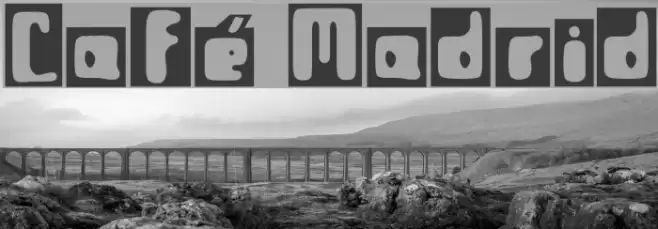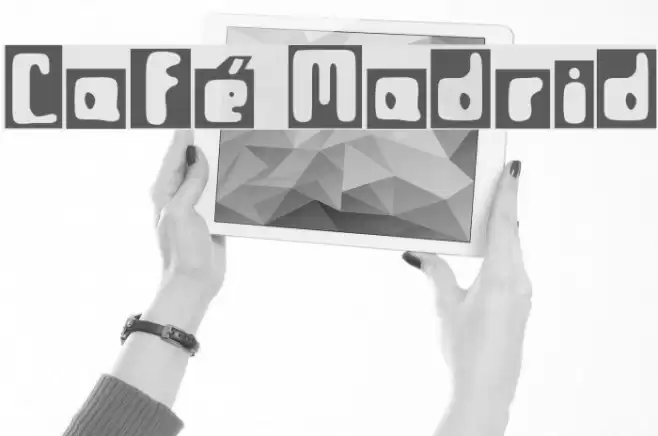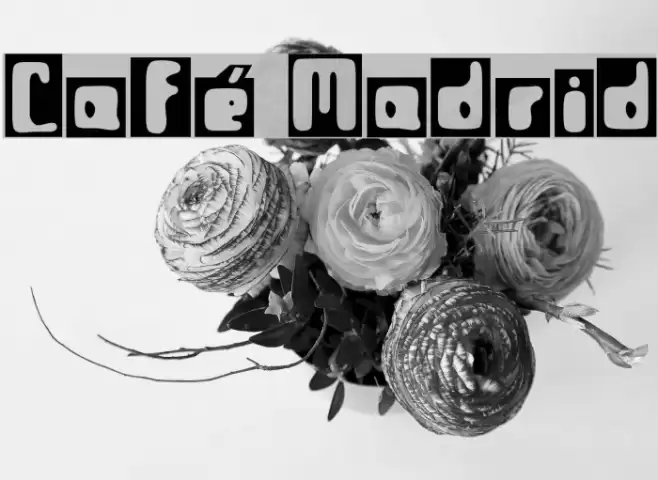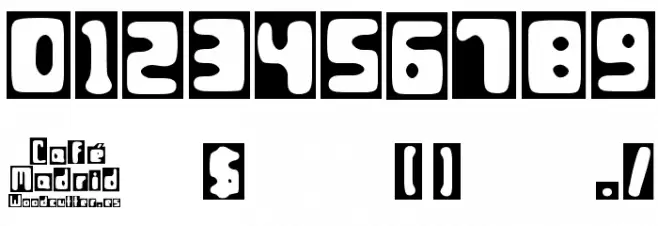
Café Madrid Font
Café Madrid Description
This font features a bold and playful design with a unique, bubbly appearance. Each character is enclosed in a square, giving it a distinct, blocky look. The letters have a whimsical, almost cartoonish style, with thick strokes and rounded edges that create a sense of fun and creativity. The numbers and special characters follow the same playful theme, making the font suitable for eye-catching designs. Its boldness and unique character shapes make it stand out, perfect for projects that require a touch of personality and flair.
A bold, playful font with a bubbly, blocky design from Uncategorized fonts.
- Proposed Projects: Ideal for children's books, playful branding, posters, and creative projects.
- Overall Style: Playful, Whimsical